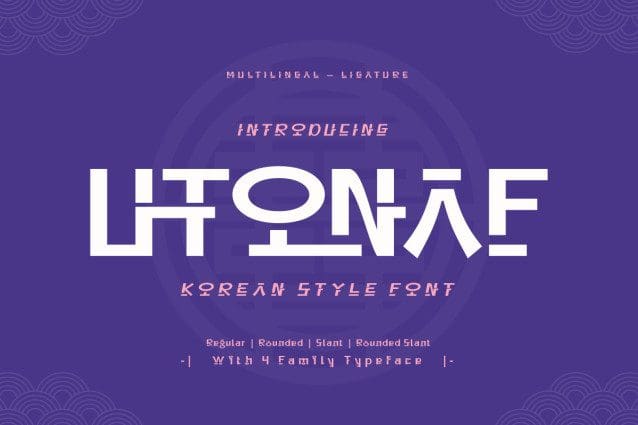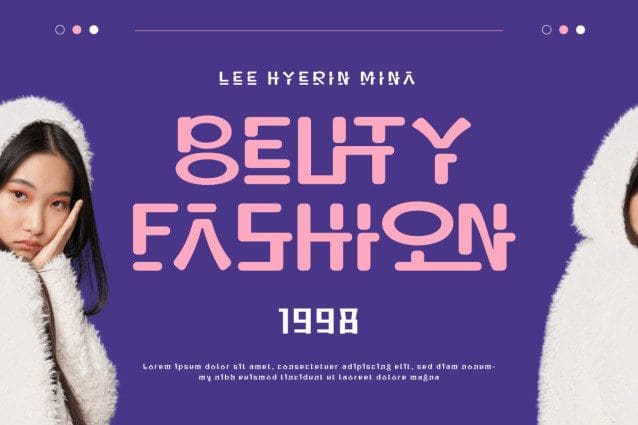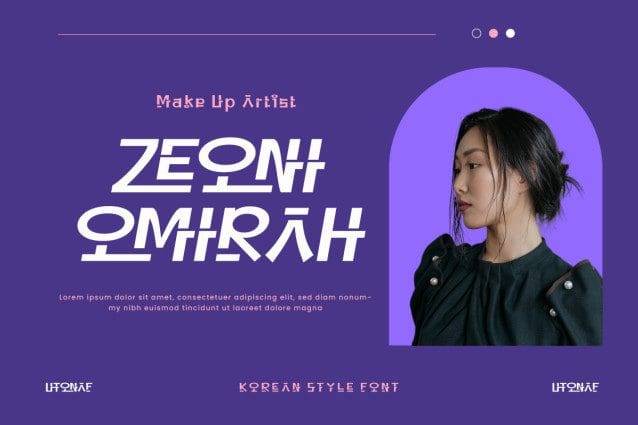
Utonaf Korean Font
Utonaf Korean Font is a bridge between Korean elegance and design modernity, bringing a stunning Asian touch to every letter. With a strong yet elegant design, this font is suitable for a variety of branding projects, logos, and special events that want to embrace the beauty of Korean culture. Utonaf Korean takes you on an enchanting journey through the beauty and charm of Korean traditions. Let your work shine with the splendor of Asian culture with Utonaf Korean, a font that reflects the beauty of the past and the sophistication of the present.